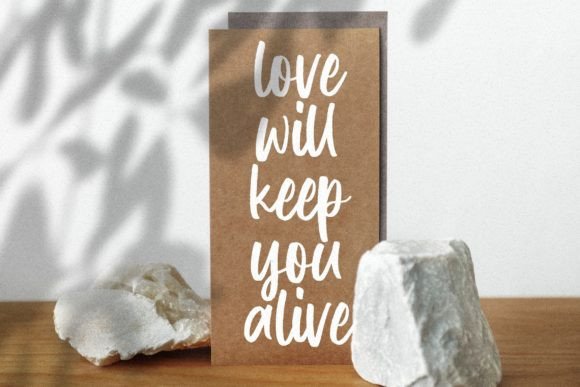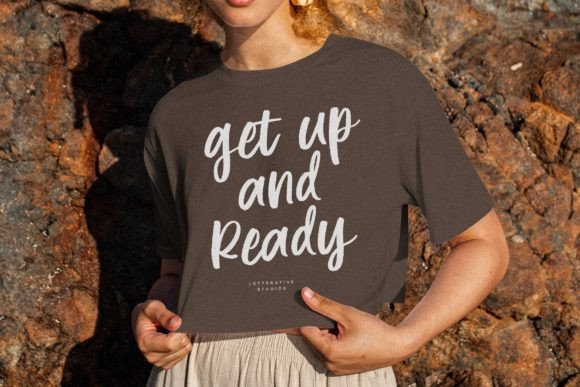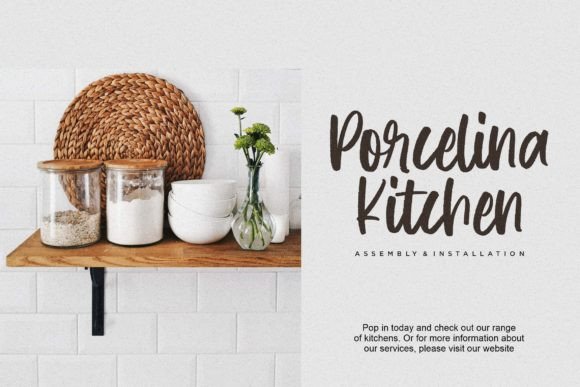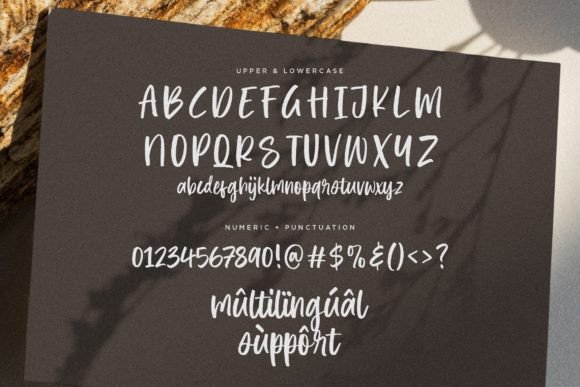
Introduction to Peanut Toast Font Font
Fonts play a crucial role in design, and the Peanut Toast Font font is a typeface that brings both character and versatility to any project. Whether you’re working on a branding project, a website, or a print design, the Peanut Toast Font font offers a unique style that can elevate your work.
Peanut Toast is a modern and carefully designed handwritten font.
This font will turn any creative idea into a true piece of art This font is PUA encoded, which means you can easily access all of the exquisite glyphs and ligatures.
Key Features of Peanut Toast Font Font
Why Choose Peanut Toast Font Font?
The Peanut Toast Font font is more than just a typeface – it’s a design tool that helps you communicate your message with style and clarity. Its unique character set and versatile design make it suitable for a wide range of applications, from elegant invitations to bold headlines.
With its carefully crafted letterforms and balanced proportions, the Peanut Toast Font font ensures readability and visual appeal across all mediums.
What makes Peanut Toast Font font special?
The Peanut Toast Font font stands out with its unique design, exceptional readability, and versatility across various design applications.